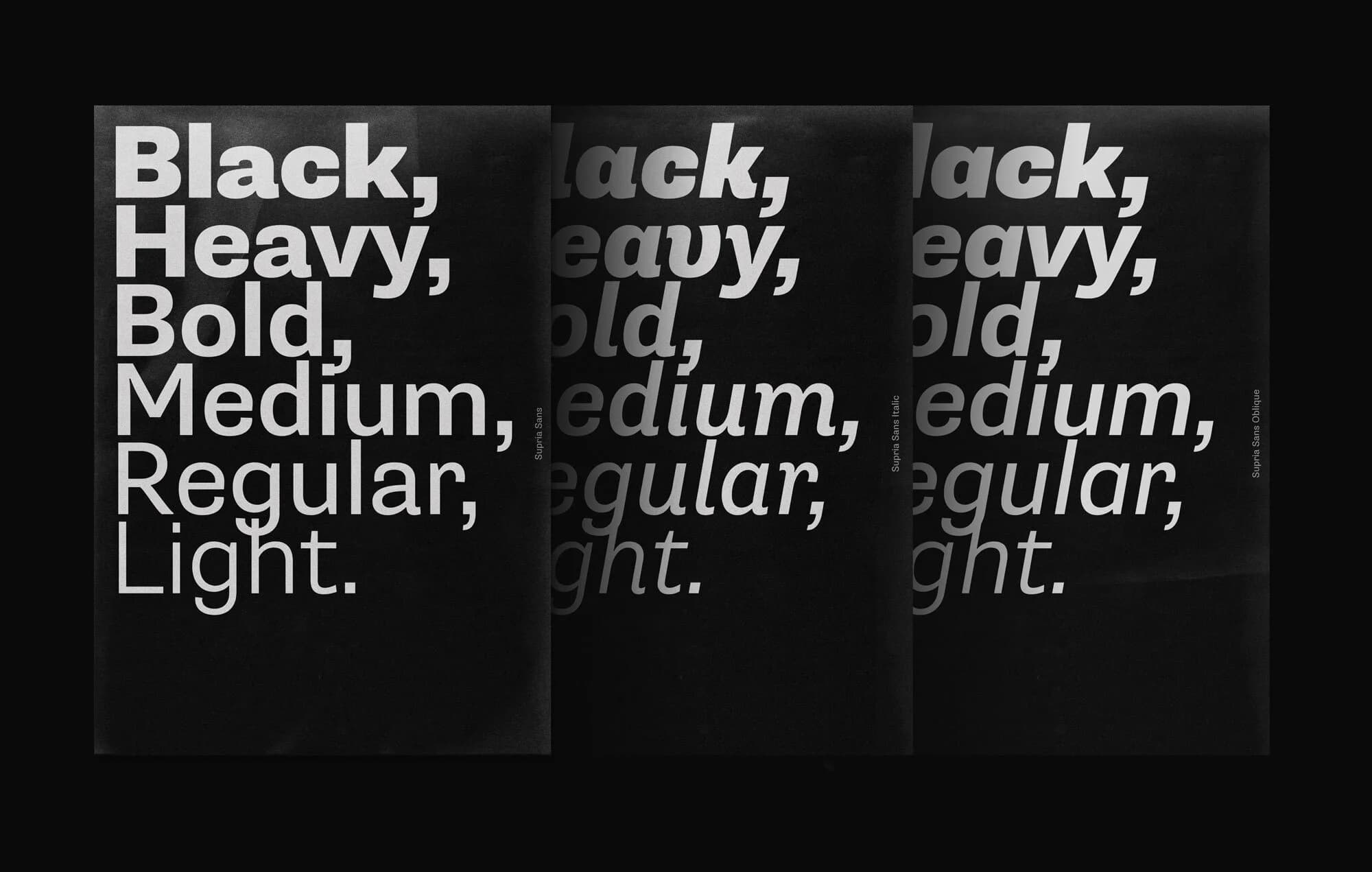
Supria Sans
HvD Fonts · Hannes von Döhren · 2013
A humanist sans-serif from Hannes von Döhren with a broad weight range and condensed companion family for text and display use.
Designed by Hannes von Döhren and released through HvD Fonts, Supria Sans is a humanist sans-serif built across an extensive weight range from Thin to Black, with matching italics throughout. A condensed subfamily extends its versatility for tighter settings and display work. The design sits comfortably in corporate identity, editorial and interface contexts where legibility and a degree of warmth are required.
Supria Sans is a humanist sans-serif with warm, rounded characteristics and strong contrast between weights, typical of HvD's approachable yet professional typeface style.